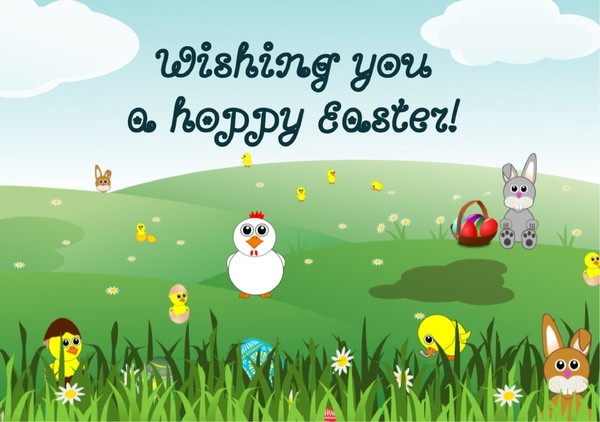
Bonbon Font Easter Google Docs Template
If you're looking for a fun and festive way to celebrate the Easter season, our Bonbon Font template is just what you need. This colorful and playful template features the Bonbon font, which adds a whimsical touch to your Easter projects.